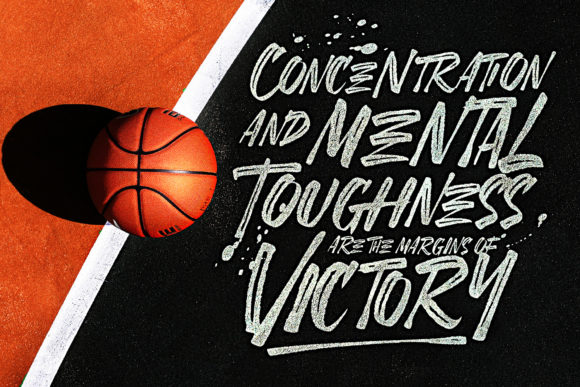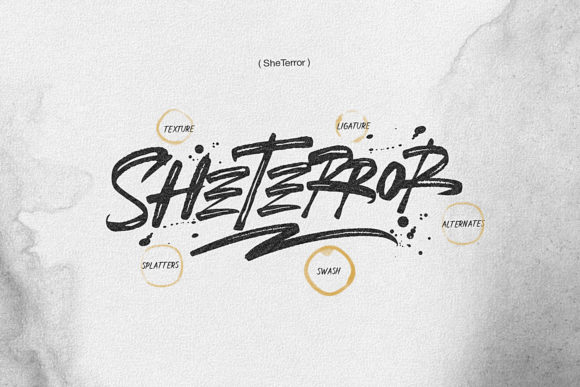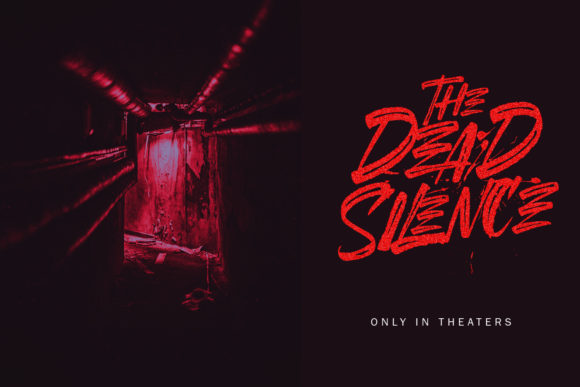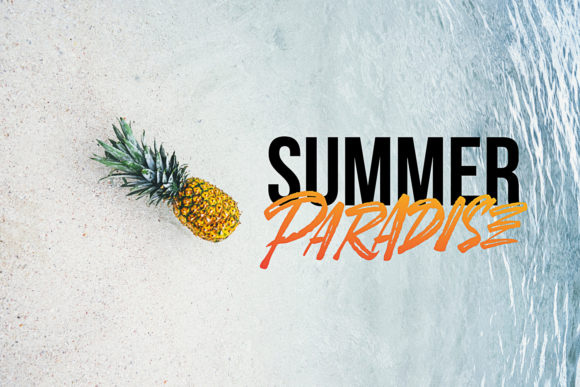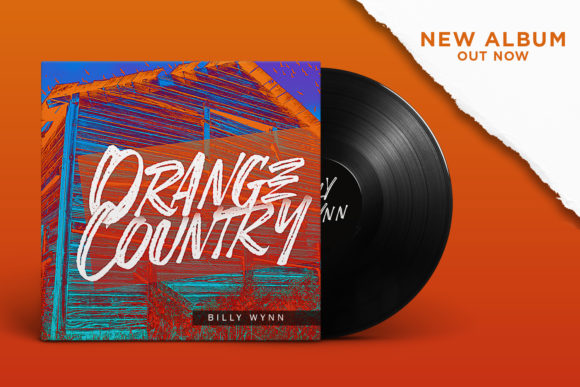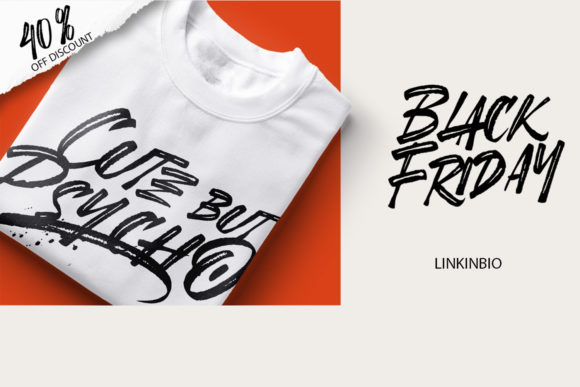
Introduction to SheTerror Font
Have you ever been in the middle of a creative project, scrolling through your favorite design resources, and suddenly stumbled upon that one font that just screams “use me”? For many designers, that moment is a game-changer, and it’s exactly what happens when you come across the SheTerror Font. This striking display font is inspired by the cola pen and exudes raw energy that can instantly elevate any graphic design project into a bold statement.
Whether you’re working on an Instagram quote, a movie or book cover, or a marketing material, the SheTerror Font is a valuable asset that can take your creative project to the next level. With its versatility and high-quality design, it’s no wonder why designers are raving about this font. And the best part? It’s available for a free download, making it an accessible design resource for creatives of all levels.
Key Features of SheTerror Font
- High-quality, unique design for creative projects, making it a valuable design resource.
- Features a transparent background, allowing for easy customization and blending with other design elements.
- SheTerror Font comes in 5 different font styles, each with its own unique characteristics and flair.
- Designed to be highly legible, with a clear and readable font size of up to 72 points, and a high resolution of 300 DPI.
- Perfect for use in digital and print projects, including logos, posters, and social media graphics.
- Includes a comprehensive character set, supporting a wide range of languages and special characters.
Honest Review: SheTerror Font
As a designer, I’m always on the lookout for high-quality design resources to enhance my creative projects. Recently, I stumbled upon the SheTerror Font, which caught my attention with its bold and edgy aesthetic.
- ✨ The font’s unique design makes it perfect for projects that require a strong, attention-grabbing look.
- ✨ The font’s transparent background allows for seamless integration with any design element.
- ⚠️ The font may not be suitable for projects that require a more conservative or traditional look.
- ⚠️ Some users may find the font’s boldness overwhelming, especially when used in large quantities.
In my opinion, the SheTerror Font is a great addition to any designer’s toolkit. Its bold design and free download make it an attractive option for creative projects. However, designers should be aware of its limitations and use it judiciously to avoid overwhelming their audience. Overall, I’d give the SheTerror Font 4 out of 5 stars for its high quality and versatility.
The SheTerror Font is a versatile design resource that can be used in a variety of creative projects, including logos, brochures, business cards, and social media graphics. Its high-quality design and transparent background make it an ideal choice for designers who want to create professional-looking materials without the hassle of complicated design software.
Yes, the SheTerror Font is designed to be used with a transparent background, making it perfect for creative projects that require a high level of design flexibility. This feature allows you to easily combine the font with other design elements, such as images or shapes.
Q: Is the SheTerror Font high quality?
Yes, the SheTerror Font is a high-quality design resource that has been carefully crafted to provide a unique and visually appealing experience. The font is designed to be clear and legible, making it perfect for use in a wide range of creative projects.